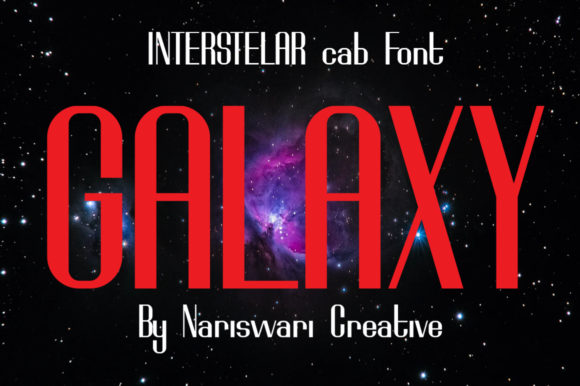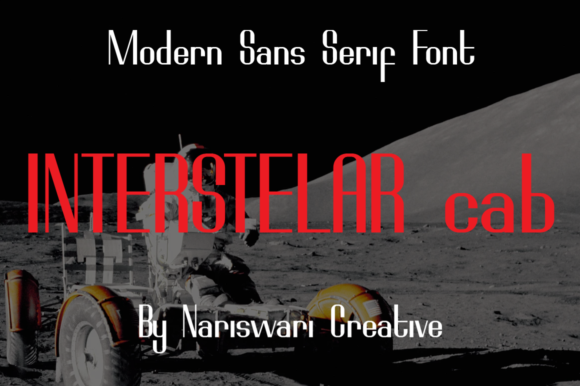
The Perfect Spark for Your Next Design
Have you ever been stuck in a creative rut, searching for that perfect font to bring your design to life? We’ve all been there – pouring over font libraries, trying to find the one that sparks inspiration and elevates our work. For designers, the right font can be the difference between a good design and a great one.
That’s where the Interstelar Cab Font comes in – a simple yet striking display font designed to inspire your creativity and take your designs to new heights. With its clean lines and sharp edges, Interstelar Cab Font is the perfect addition to any designer’s toolkit, offering endless possibilities for creative expression and self-expression. Whether you’re working on a new project or looking to refresh your portfolio, Interstelar Cab Font is sure to be a valuable asset in your design arsenal.
Interstellar Cab Font Key Features
• Unique Characteristics: Interstellar Cab Font features a unique blend of futuristic and retro elements, making it perfect for sci-fi and space-themed projects.
• Font Weight: Interstellar Cab Font comes in 6 font weights, ranging from Light to Black, providing flexibility for designers to choose the perfect weight for their project.
Designer Review: Interstelar Cab Font
I recently had the chance to work with the Interstelar Cab Font, and I must say it’s a unique addition to any design project. ✨ One of the things that immediately caught my attention was its retro-futuristic aesthetic, which is perfect for sci-fi themed projects or those looking to add a touch of nostalgia.
The font’s versatility is another standout feature. ✨ It comes in a range of weights and styles, making it easy to use in various contexts, from headings to body text. I also appreciated the attention to detail that has gone into creating a consistent look across different font sizes and weights.
• ⚠️ Limited language support: The font only includes Latin characters, which may be a limitation for designers working on projects that require other languages.
• ⚠️ Not ideal for small text sizes: While the font looks great at larger sizes, it can become pixelated and difficult to read at smaller sizes.
Overall, the Interstelar Cab Font is a solid choice for designers looking to add a touch of retro-futurism to their projects. While it has its limitations, its unique aesthetic and versatility make it a worthwhile addition to any design library.
Interstellar Cab Font is ideal for creating futuristic and space-themed designs. It can be used for a variety of purposes, including:
• Science fiction movie posters
• Space-themed websites and social media graphics
• Galaxy-inspired print materials
To get the most out of Interstellar Cab Font, experiment with different font sizes, colors, and styles to create a unique and eye-catching design.